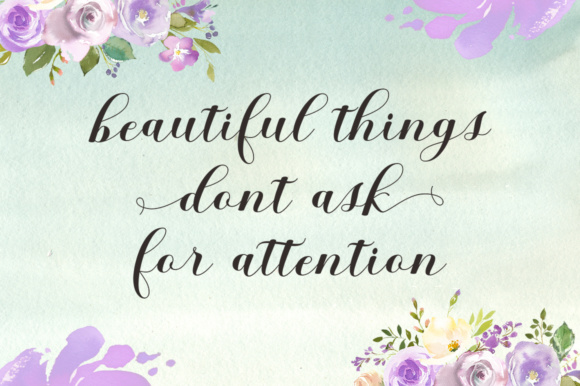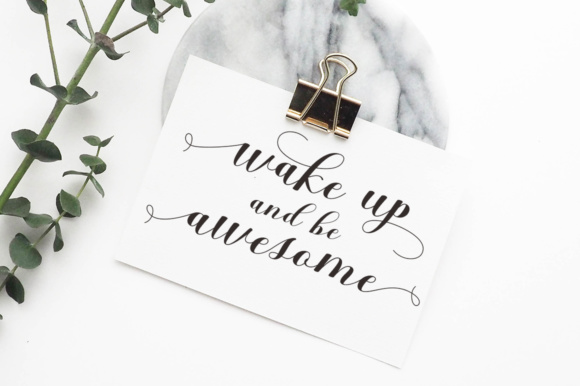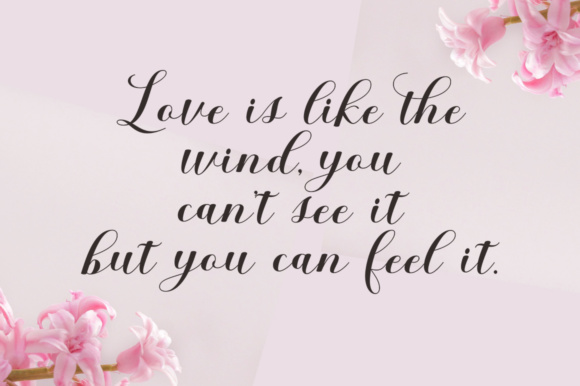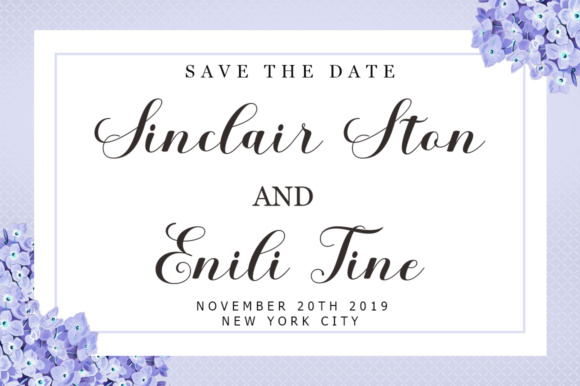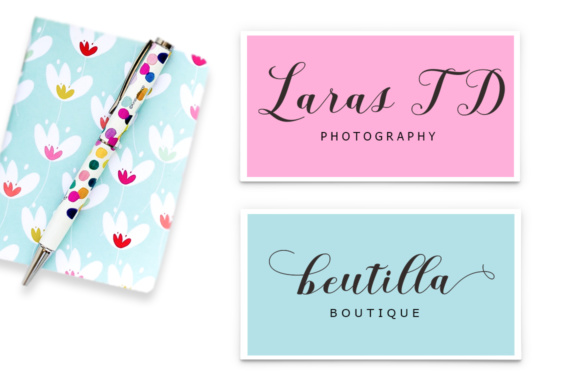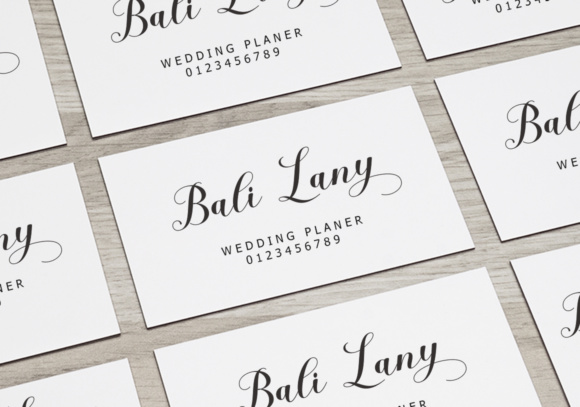
Introduction to Dethalia Script Font
The Dethalia Script is a modern calligraphy font.
It has a casual and pretty style and contains lots of beautiful swashes .